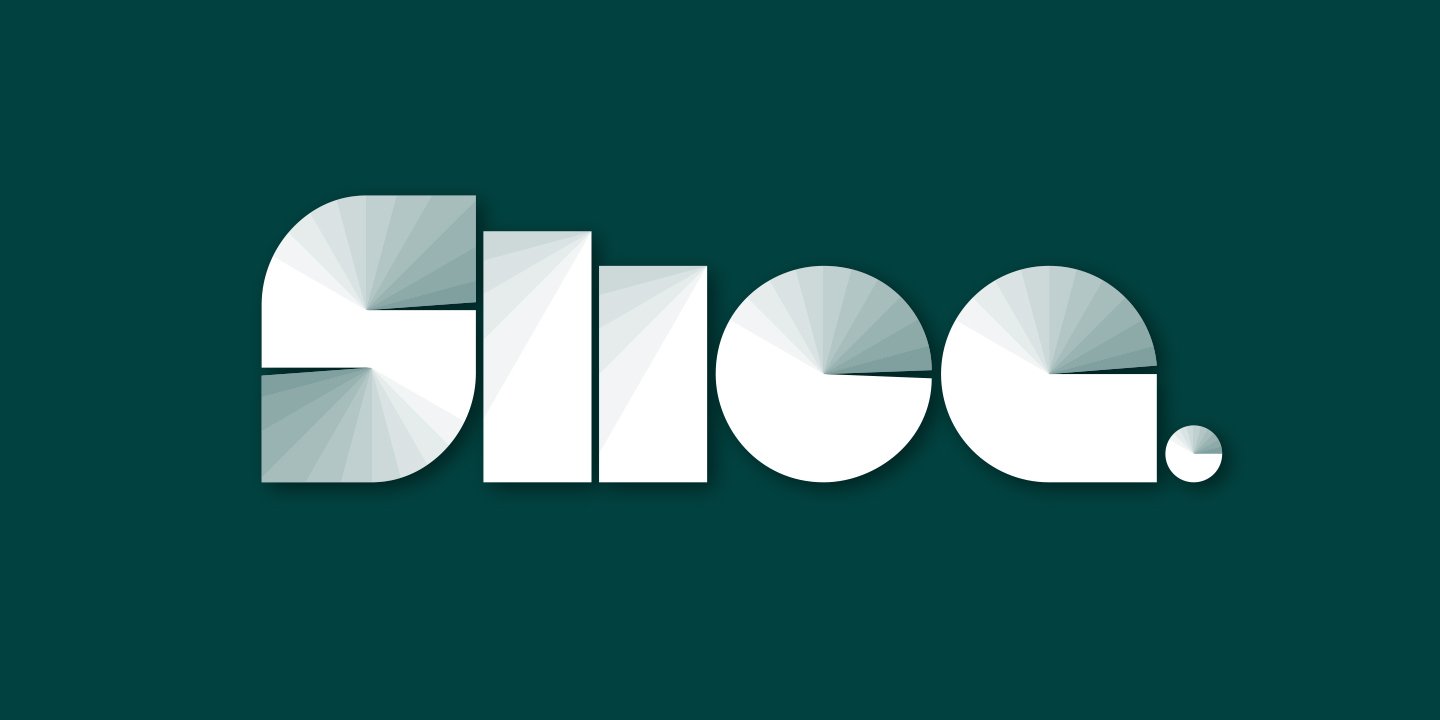
Slice Free Download
Slice Font Free Download
Slice Font excels across diverse design applications including tech startup branding, modern web interfaces, cutting-edge product packaging, precision engineering communications, contemporary art exhibitions, digital design studios, innovative software presentations, and futuristic marketing campaigns. Its sharp character makes it particularly effective for projects requiring precise visual impact while maintaining excellent readability, ensuring your designs convey technological sophistication and modern precision across both digital platforms and contemporary print materials.
What makes Slice Font truly exciting is its innovative approach to typography that perfectly captures the essence of precision cutting and technological advancement through carefully engineered letterforms. The font features precisely crafted characters that incorporate subtle angular elements and sharp proportions that create striking visual precision while preserving optimal communication effectiveness. Its distinctive character construction combines geometric sharpness with modern functionality, creating text that feels both technically advanced and professionally reliable. The font's optimized spacing and calculated character relationships ensure superior performance across various precision applications while maintaining the characteristic sharpness that defines its cutting-edge personality.
Slice Font presents a comprehensive type family designed to support diverse modern and technological design requirements. The family typically includes thin, light, regular, medium, bold, and black weights, along with corresponding italic variations that provide complete flexibility for sharp typography compositions. Many versions feature extended character sets with technical symbols, geometric ornaments, and specialized glyphs that enhance authentic precision aesthetic applications.
The Slice Font Free Download represents exceptional value for designers working on technology-focused and precision projects across multiple sectors. Whether developing tech startup identity, creating digital interface communications, designing precision engineering materials, or producing contemporary art content, this font delivers consistent sharpness and memorable technological appeal. Its cutting-edge characteristics make it particularly effective for industries including technology, digital design, precision engineering, and contemporary arts sectors seeking to communicate innovation and technical precision.
For optimal results, Slice Font combines excellently with clean, geometric design elements and modern color schemes that reinforce its precision message. Its sharp presence excels in headline applications while maintaining exceptional performance in technical documentation contexts. The font's technological sophistication and cutting-edge appeal make it an invaluable tool for creating precise communications that resonate with audiences expecting innovation and technical excellence.